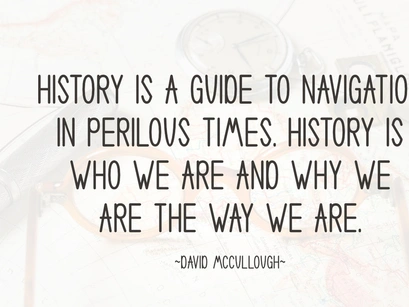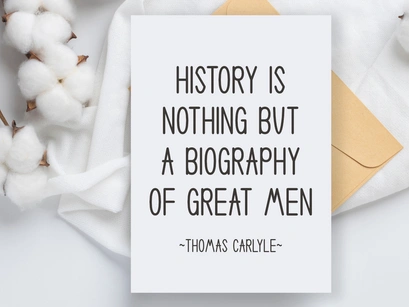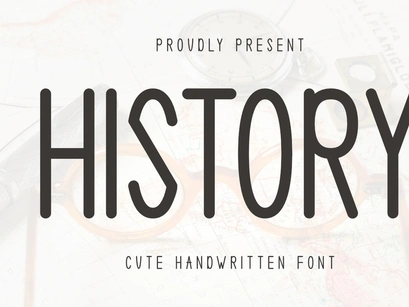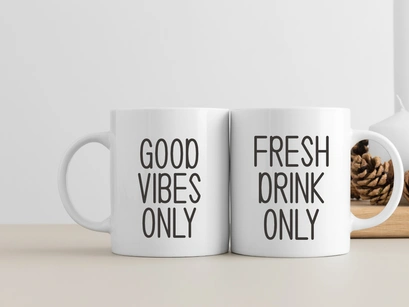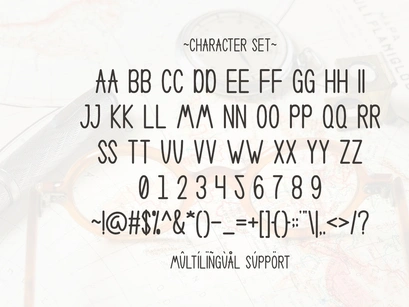
History is a minimalist and cute handwritten font that brings a touch of warmth and personality to your design. Its simple and charming style makes it perfect for planners, wall art and casual mockups. And also suitable for various topics such as easter, valentine, black history, tumbler, heart and mardi grass.